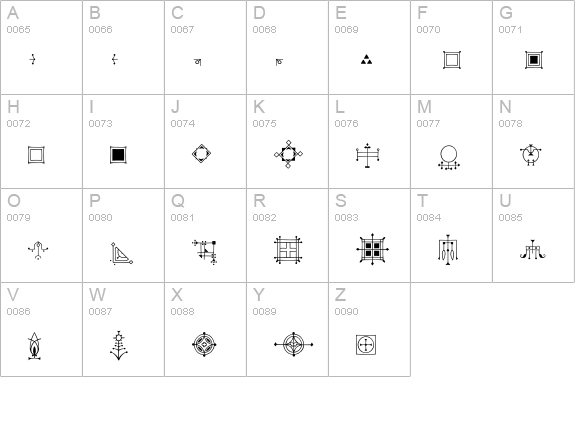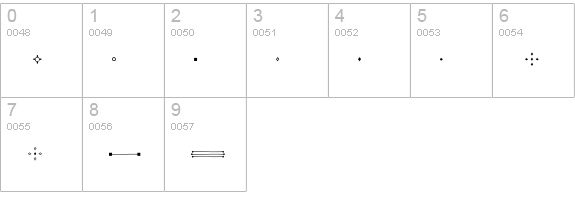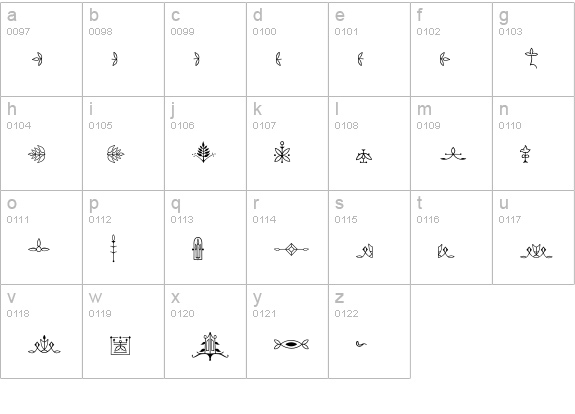
P22FLLWTerracotta-Extras Font Details
P22FLLWTerracotta-Extras font is a versatile and eye-catching typeface that is sure to make a statement in any design project. With its unique combination of bold shapes and intricate details, this font adds a touch of elegance and sophistication to any text. This font is perfect for a wide range of applications, including branding, packaging, invitations, and more. Its distinct style and attention to detail make it stand out from the crowd, adding a touch of personality to any design. What sets P22FLLWTerracotta-Extras font apart is the fact that it is freely available to download at FontsMarket.com. This means that designers and creatives alike can enjoy the benefits of this stunning font without any cost. It opens up a world of possibilities for those looking to elevate their designs without breaking the bank. With its extensive character set and various stylistic alternates, P22FLLWTerracotta-Extras font offers endless creative opportunities. Whether you're designing a logo, creating a poster, or crafting a unique piece of typography, this font has everything you need to bring your vision to life. So why wait? Discover the beauty and versatility of P22FLLWTerracotta-Extras font today. Download it for free at FontsMarket.com and watch as your designs come alive with style and sophistication.